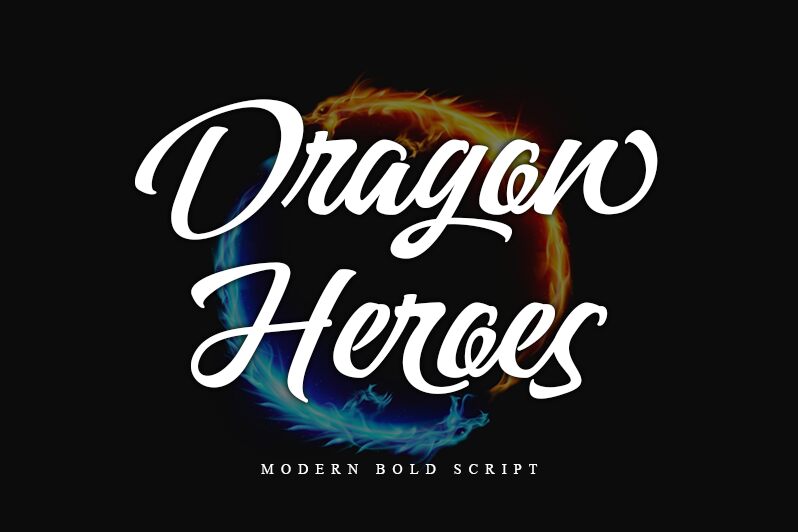
Dragon Heroes font has been created by Letterara. Cursive, elegant, and flowing in its form, this calligraphic font exemplifies both bold strokes and delicate curves. With high contrast and smooth transitions, it conjures a dynamic presence infused with sophistication.